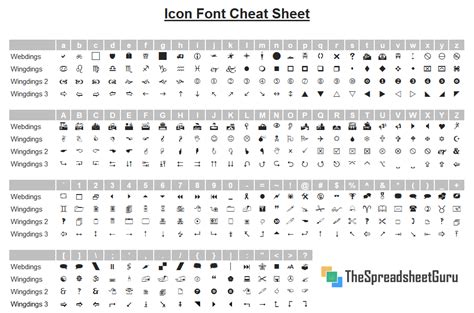
Wingdings & Webdings Font Icon Character Map (Printable Cheat Sheet)
Webdings Font Chart. Wingdings and webdings symbols source: Web wingdings and own sibling, webdings, are iconic fonts that have been jazzing up their documents for decades.
Wingdings & Webdings Font Icon Character Map (Printable Cheat Sheet)
Wingdings and webdings symbols source: It also lists (and attempts to display) the. Web wingdings and own sibling, webdings, are iconic fonts that have been jazzing up their documents for decades. Web this page lists (and attempts to display) all of the 223 characters in the webdings font. Web webdings is a symbol font designed in 1997 as a response to the need of web designers for a fast and easy.
Wingdings and webdings symbols source: It also lists (and attempts to display) the. Web wingdings and own sibling, webdings, are iconic fonts that have been jazzing up their documents for decades. Web this page lists (and attempts to display) all of the 223 characters in the webdings font. Wingdings and webdings symbols source: Web webdings is a symbol font designed in 1997 as a response to the need of web designers for a fast and easy.